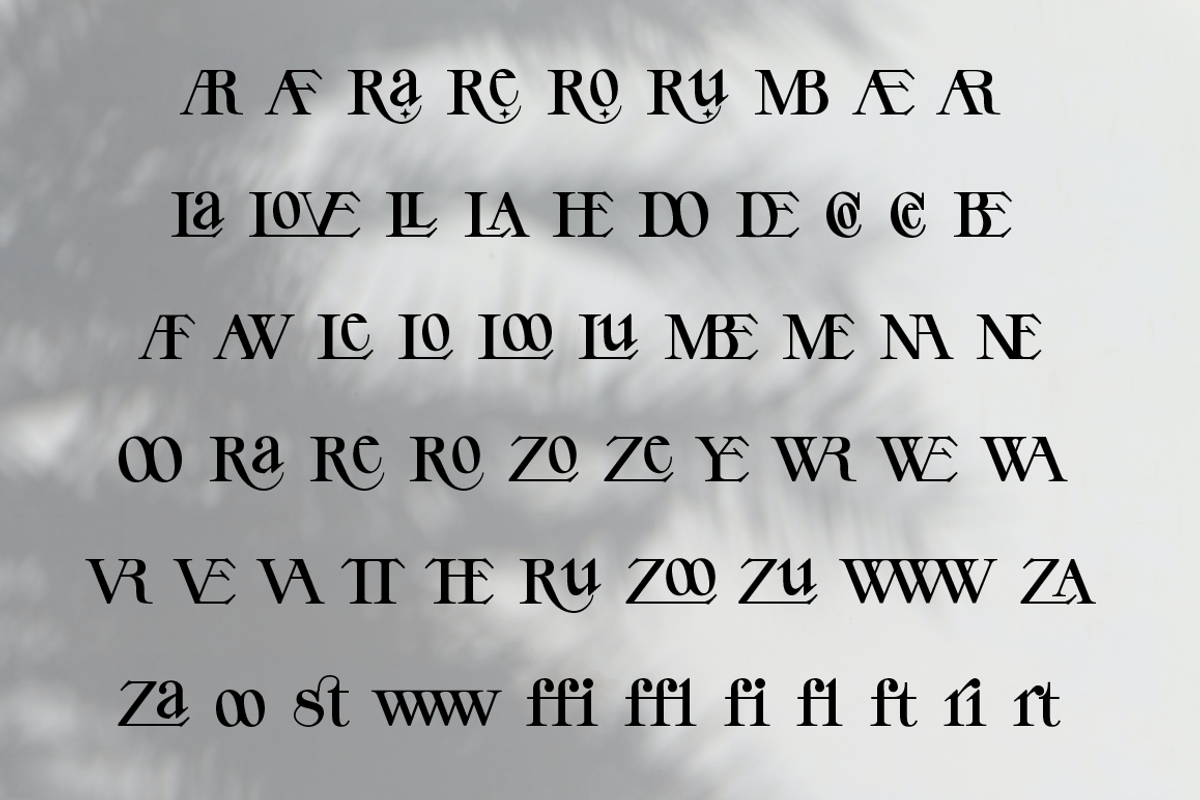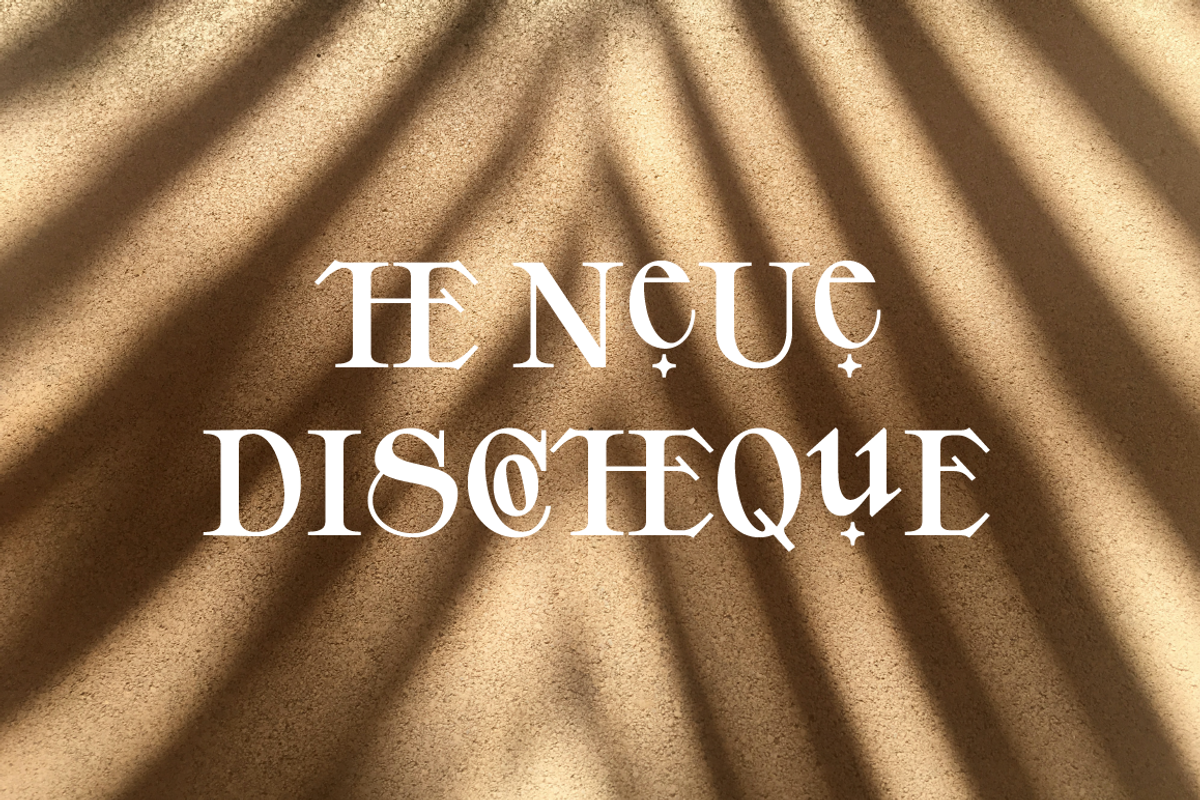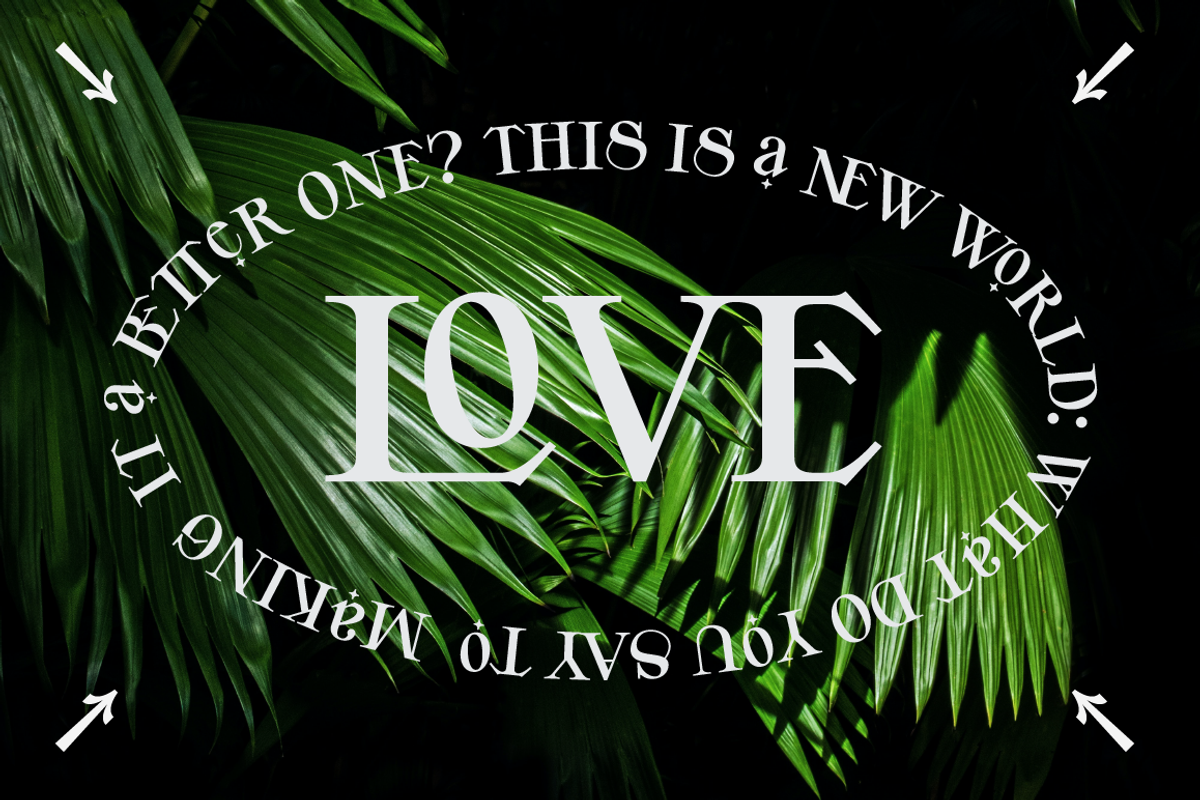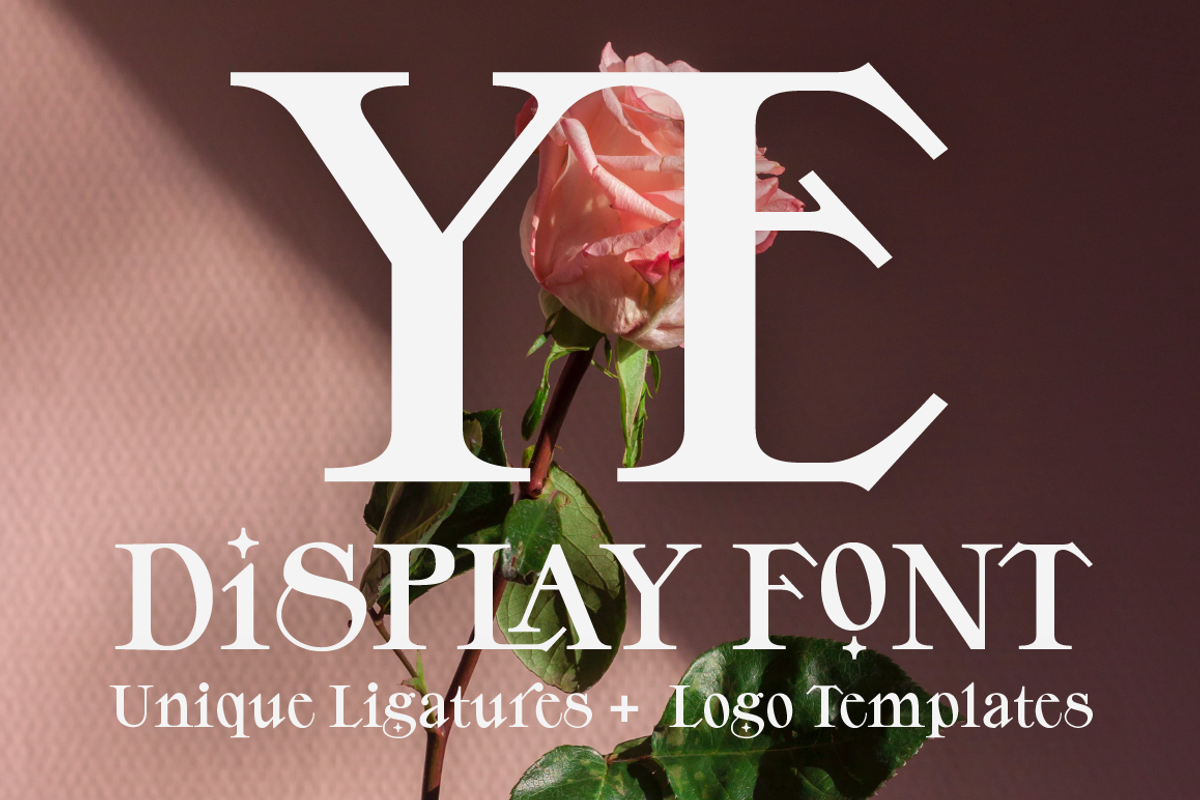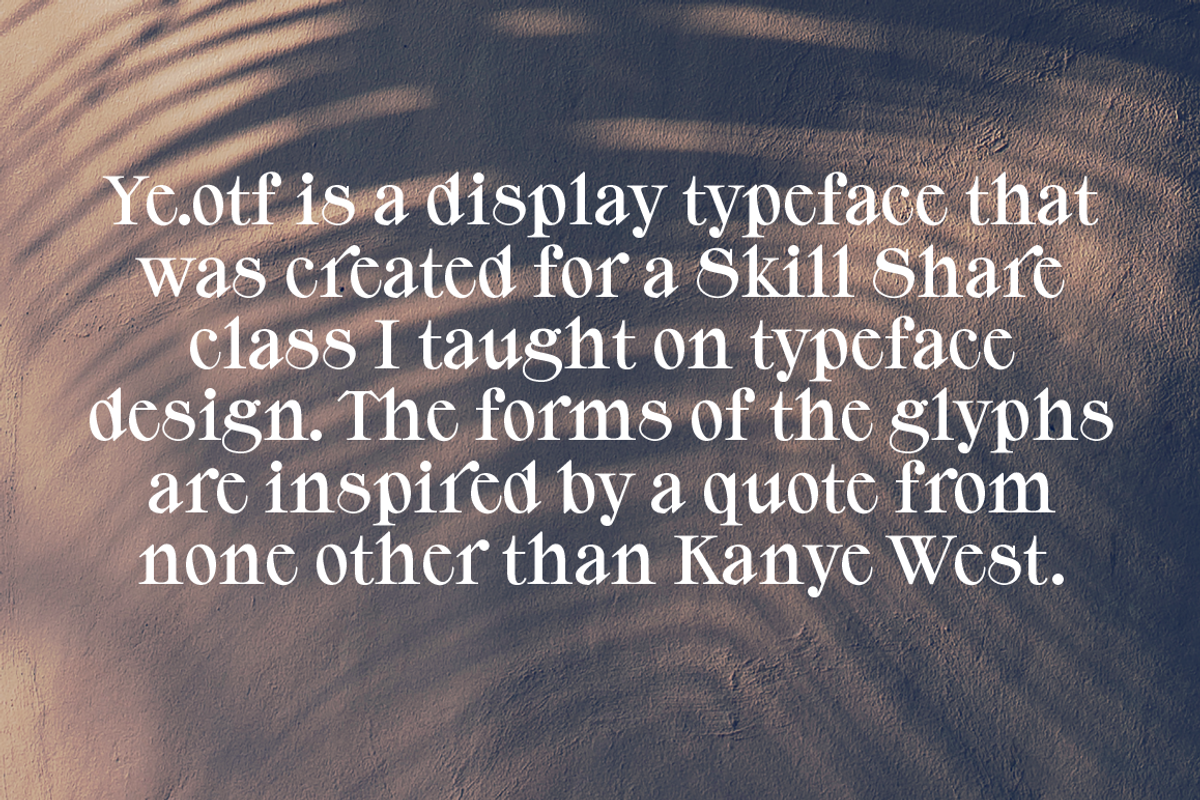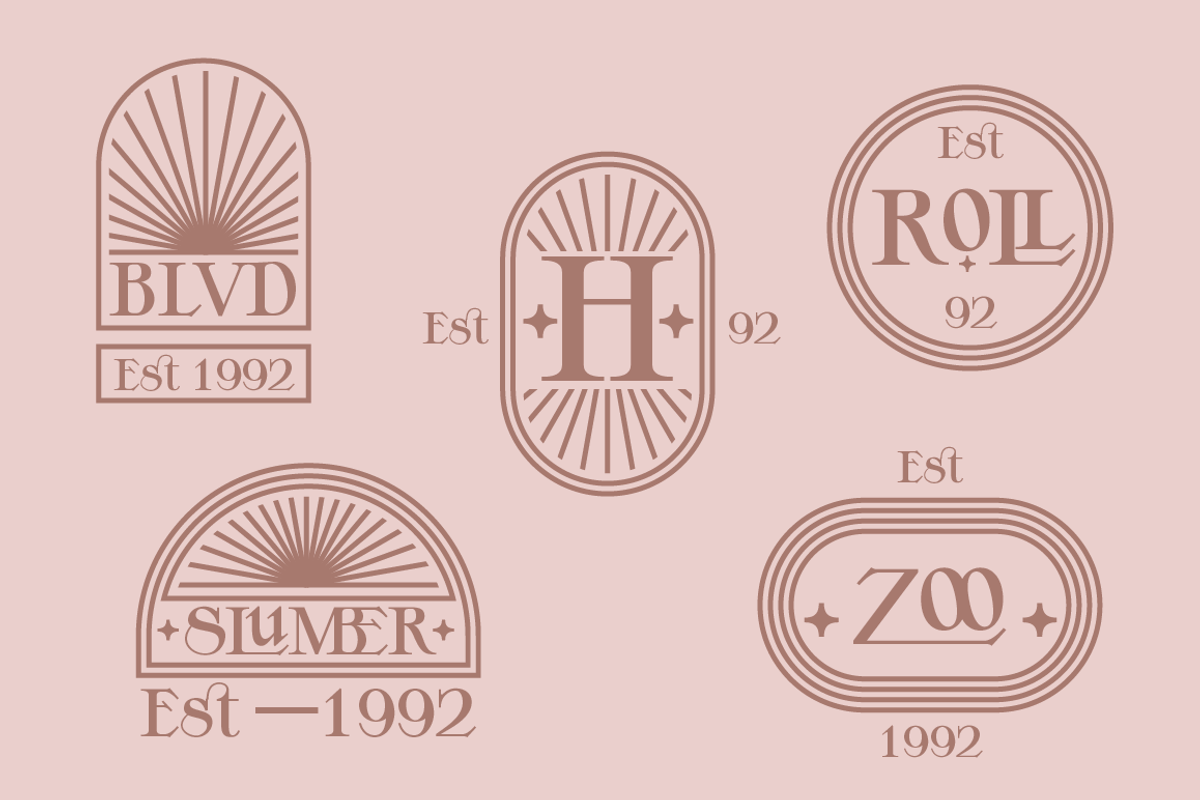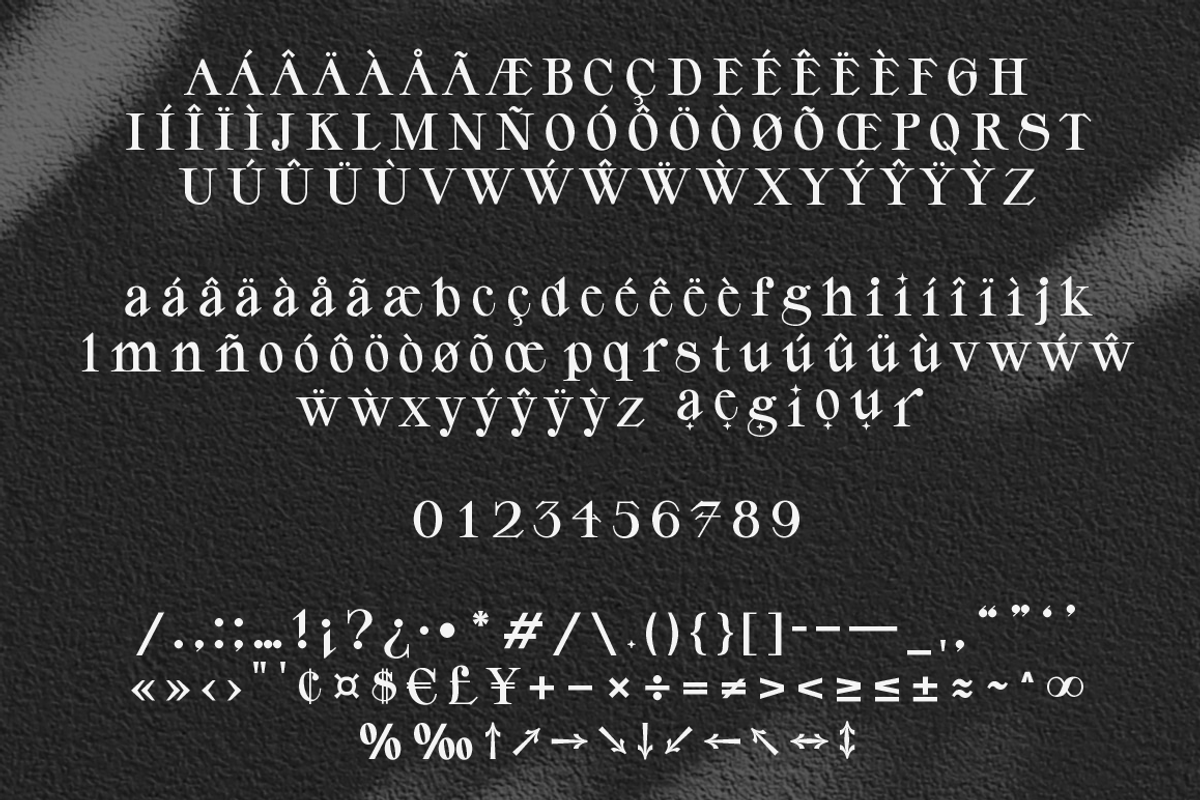
YE Ligature Font + Logos
With a semi condensed style, a high visual center, and sharp-angled serifs YE is a bold contemporary Serif display typeface that stands out
Includes over 50 Ligatures and alternatives
Ye is elegant and strong. It dances between playful and proud. It is perfect for fashion, contemporary, web, and logo design.
- Letters, Numbers, Punctuation, Arrows
- Ligatures, alternates
- Includes 5 logo templates
- Over 260 characters
Includes 5 FREE LOGO TEMPLATES. The logo templates (see thumbnail above) are AI files that are fully customizable in adobe illustrator. I designed them to pair especially well with the YE typeface but feel free to use them however you want.